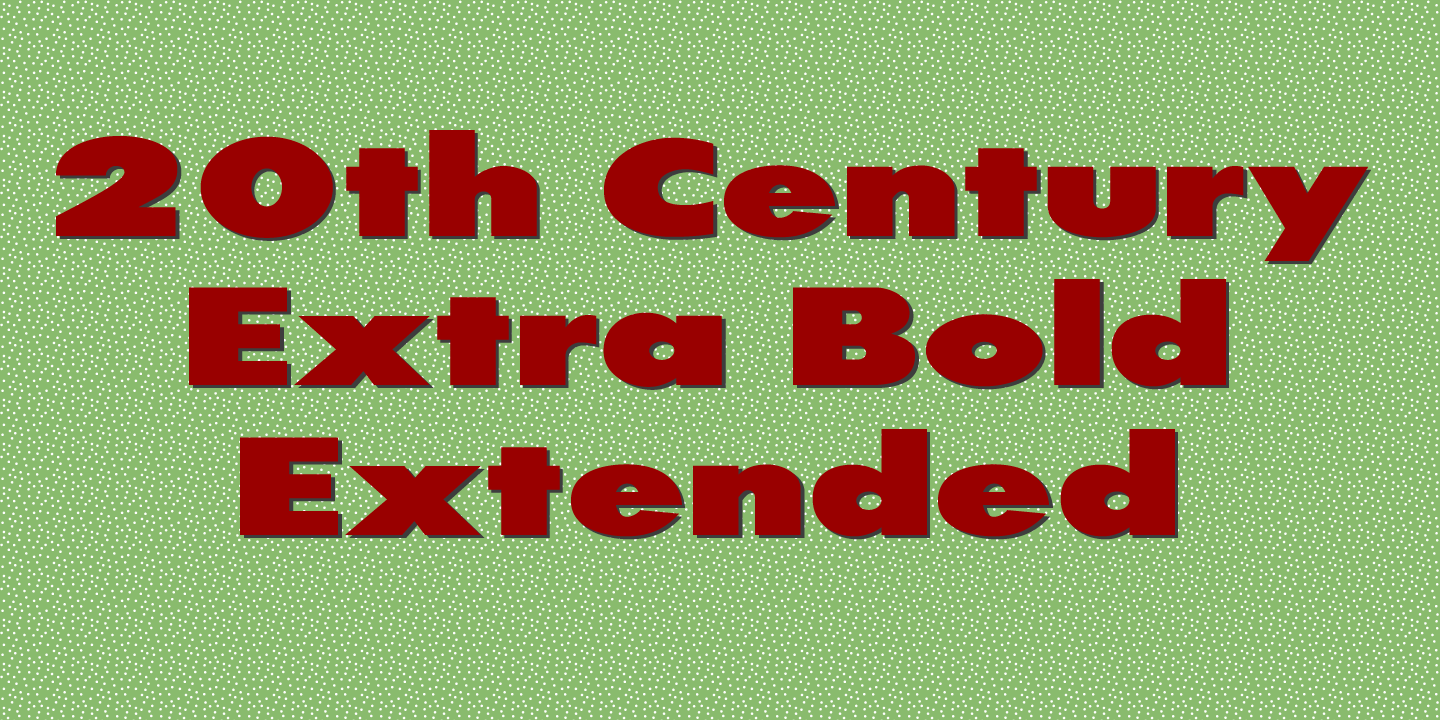
20th Century ExtraBold Extended Font is a monumental and overwhelmingly powerful typeface, perfectly suited for projects that demand a commanding visual presence and an unmistakable sense of historical impact. Imagine it dominating the headlines of vintage advertising campaigns, adding a robust and unyielding edge to industrial branding, or making an unmissable declaration on posters for grand public events and historical exhibitions. Its expanded width and extra-bold weight make it an ideal choice for crafting striking logos that convey immense strength and stability, designing impactful merchandise for retro-inspired brands, or bringing a powerful, assertive vibe to digital content and interfaces where sheer visual power is paramount. If you're looking to convey heritage, gravitas, and an undeniable sense of classic magnitude, 20th Century ExtraBold Extended Font is an outstanding selection.
What makes 20th Century ExtraBold Extended Font so exciting? It’s its unparalleled ability to combine a massive, solid construction with distinctively wide and bold letterforms, creating an immediate visual impact that resonates with the iconic typography of the mid-20th century. This font is specifically designed for display purposes, meaning its unique character truly shines in larger sizes, commanding attention while maintaining clarity. Despite its powerful visual weight, 20th Century ExtraBold Extended Font is crafted to ensure readability for its intended use, delivering your message with both precision and significant force. Designers will appreciate its versatility in creating visuals that are both aesthetically compelling and deeply memorable, making it a go-to choice for projects that need to stand out boldly and reflect a timeless, robust aesthetic.
The 20th Century ExtraBold Extended Font family is typically designed to maximize its formidable and distinctive aesthetic. While it might primarily feature this singular, intensely bold and extended weight that perfectly embodies its unique style, it can also be part of a larger family that includes other weights or widths, offering further versatility for comprehensive design systems. These variations, whether explicit or implicit in its design, ensure that 20th Century ExtraBold Extended Font maintains its cohesive and high-impact visual identity across different design applications, from monumental titles to powerful short statements. Discover the formidable power of 20th Century ExtraBold Extended Font Free Download and infuse your designs with an unforgettable sense of dominant strength.